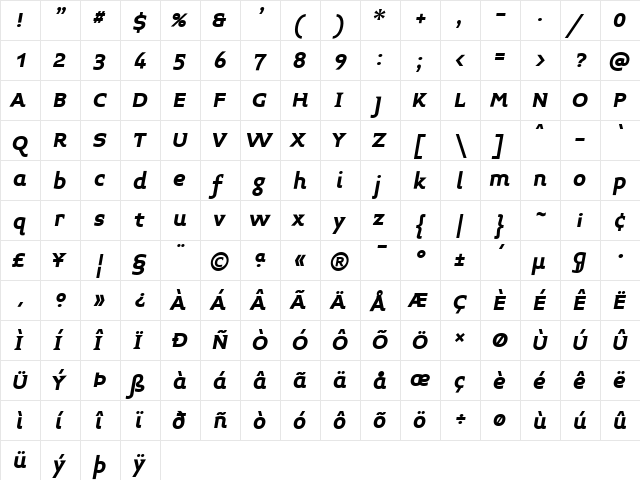
Midiet Serif Italic Bold
DesignerYamaoka Yasuhiro
Design Context for Midiet Typeface
Midiet carries the refined structure of traditional serif typography, with bracketed terminals and considered proportions that communicate credibility and craft. Its italic angle brings a sense of urgency and motion to the letterforms. The heavy weight commands attention and anchors typographic hierarchies.
Pro Tip: Set Midiet with slightly loose tracking in headlines to let each letterform's detail read clearly at display sizes.